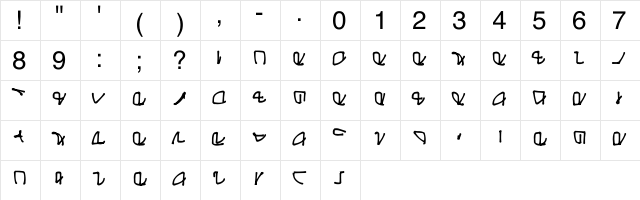
Quadrik Regular
Design Context for Quadrik Typeface
Quadrik is a composed and adaptable typeface that performs quietly and consistently across a wide range of design contexts.